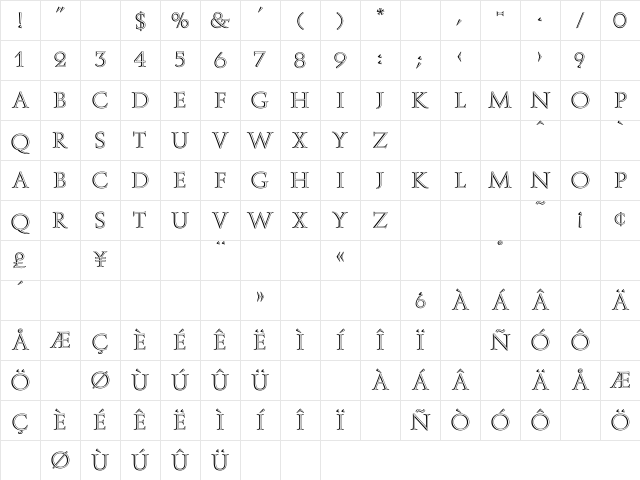
AugusteaOpenPlain Regular
Design Context for AugusteaOpenPlain
AugusteaOpenPlain is a composed and adaptable typeface that performs quietly and consistently across a wide range of design contexts.